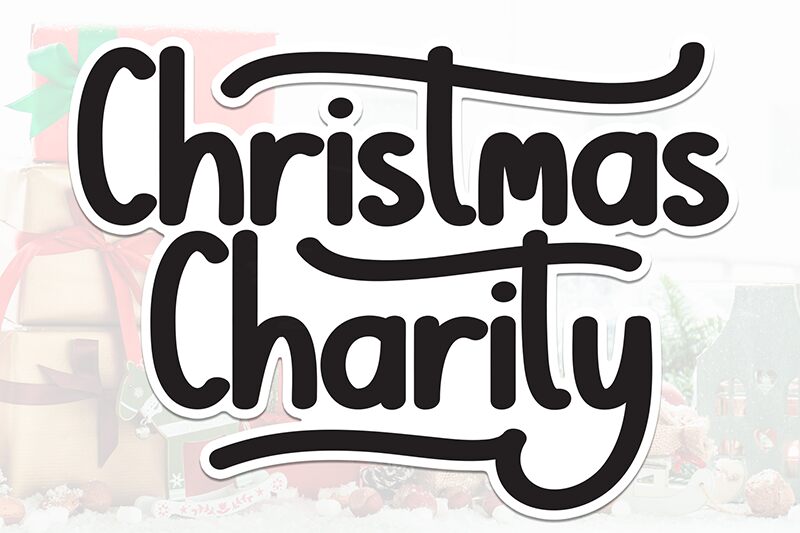
Christmas Charity
Christmas Charity font, a condensed handwritten creation by Scratchones, exudes a whimsical and friendly vibe. The modern yet casual design delivers an engaging appearance suitable for various themes. It's the ideal choice for all your holiday projects.
This free handwritten font fits logo and branding designs, posters, flyers, greeting cards, invitations, stickers, packaging projects, social media banners and ads. Use it to add a warm touch to home decor items or apparel as well.